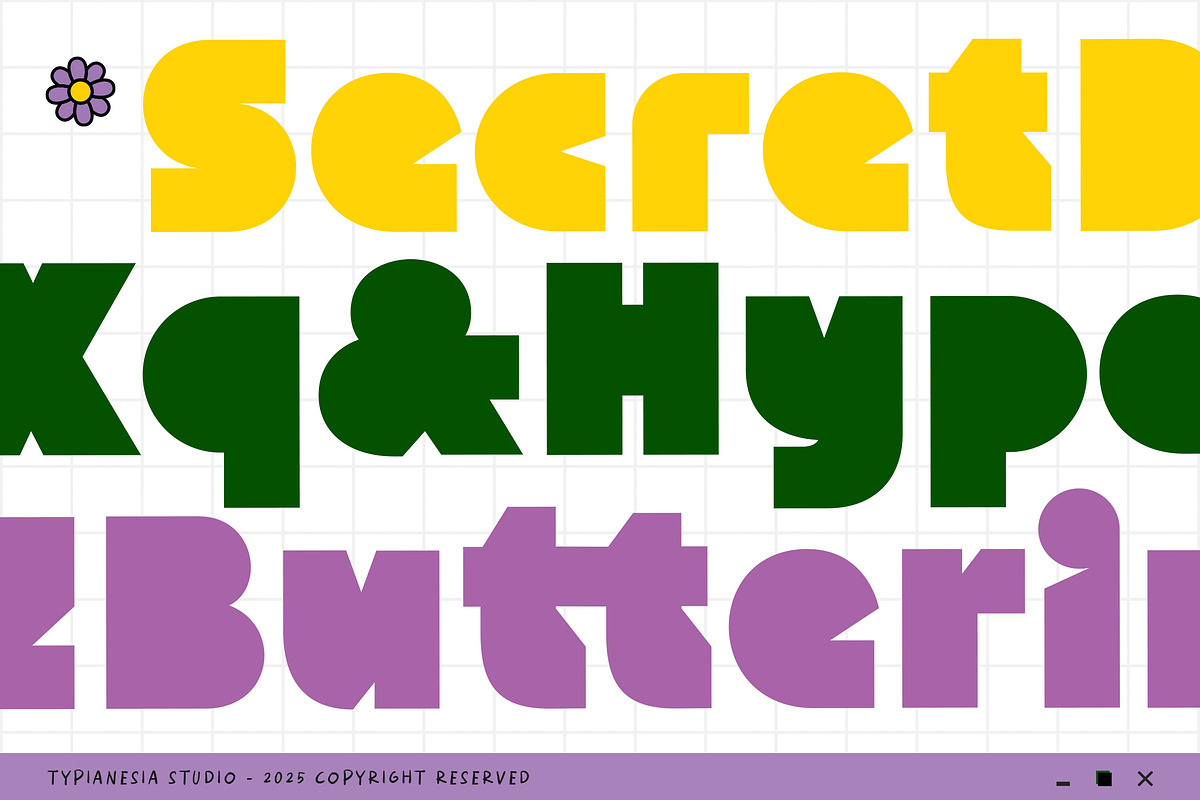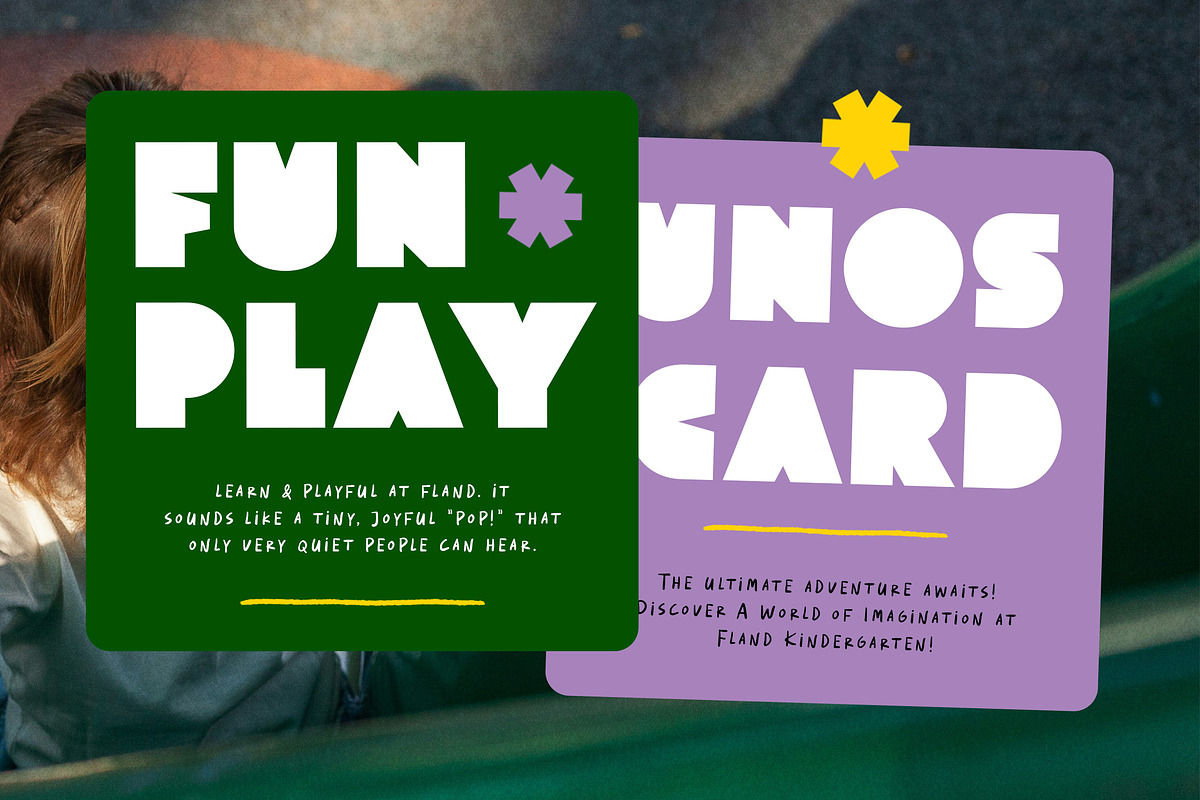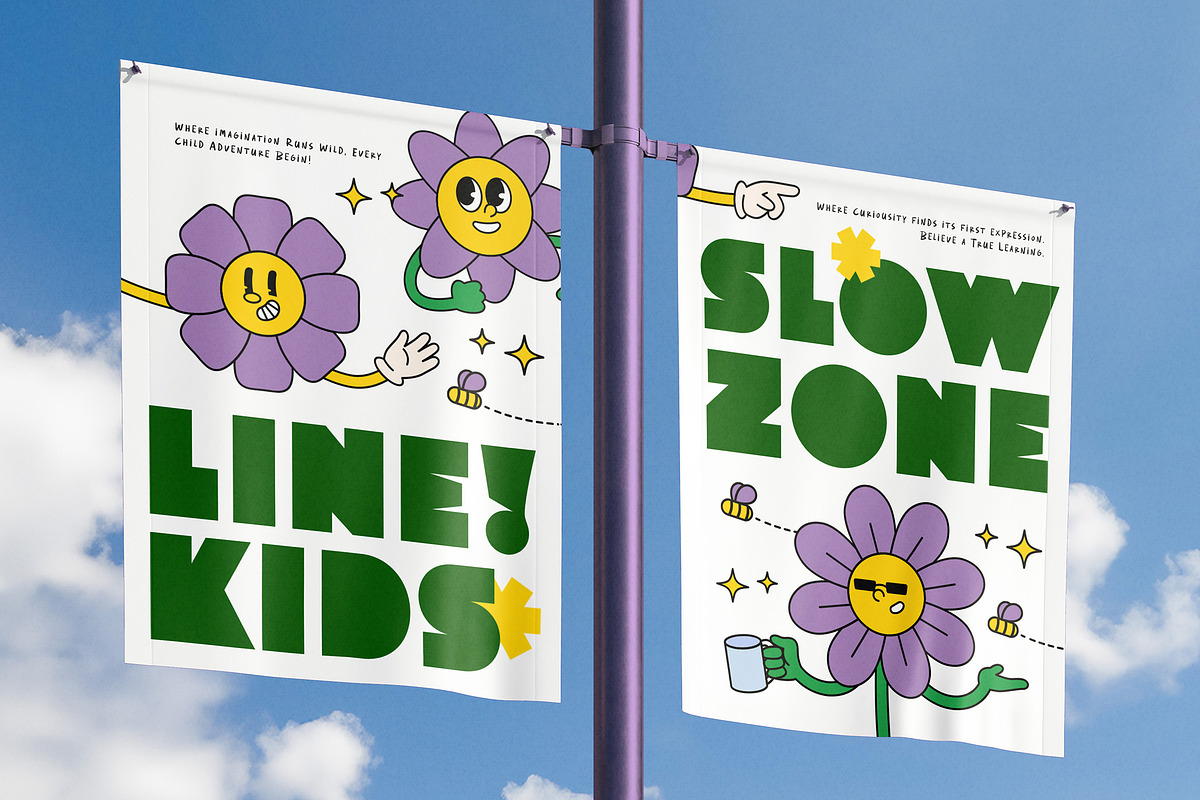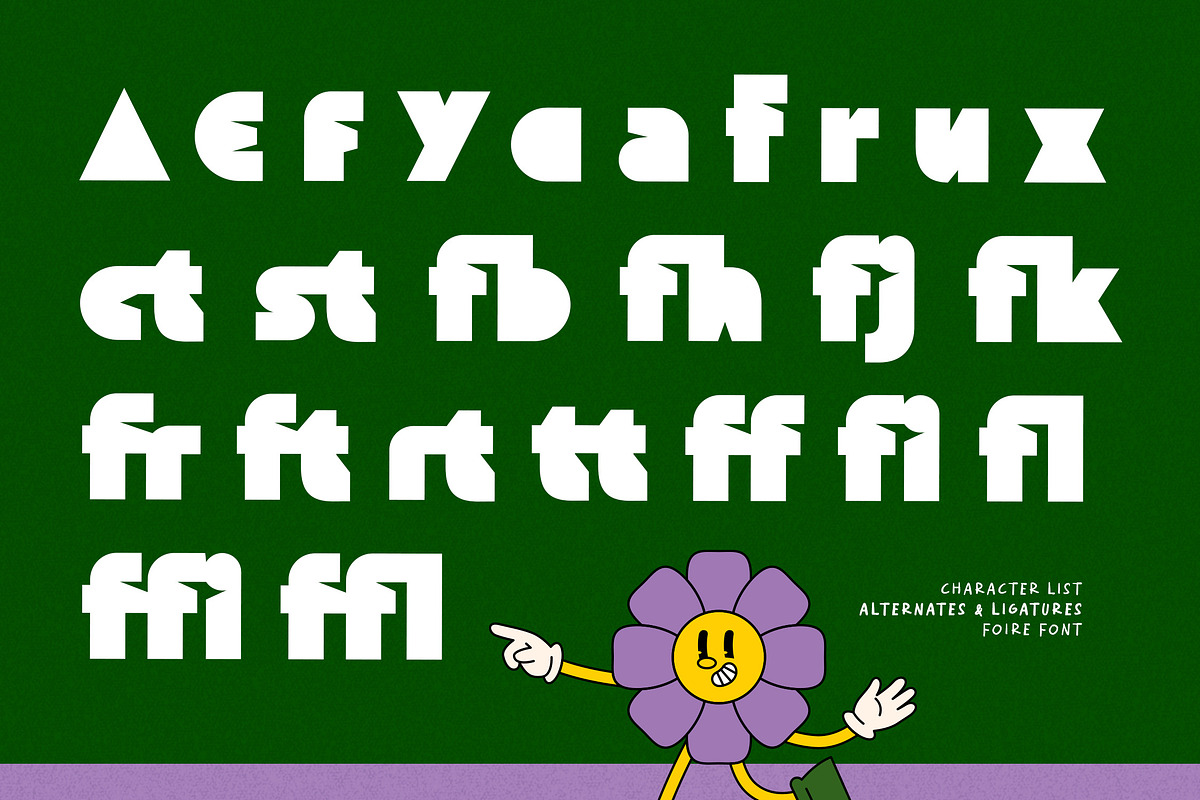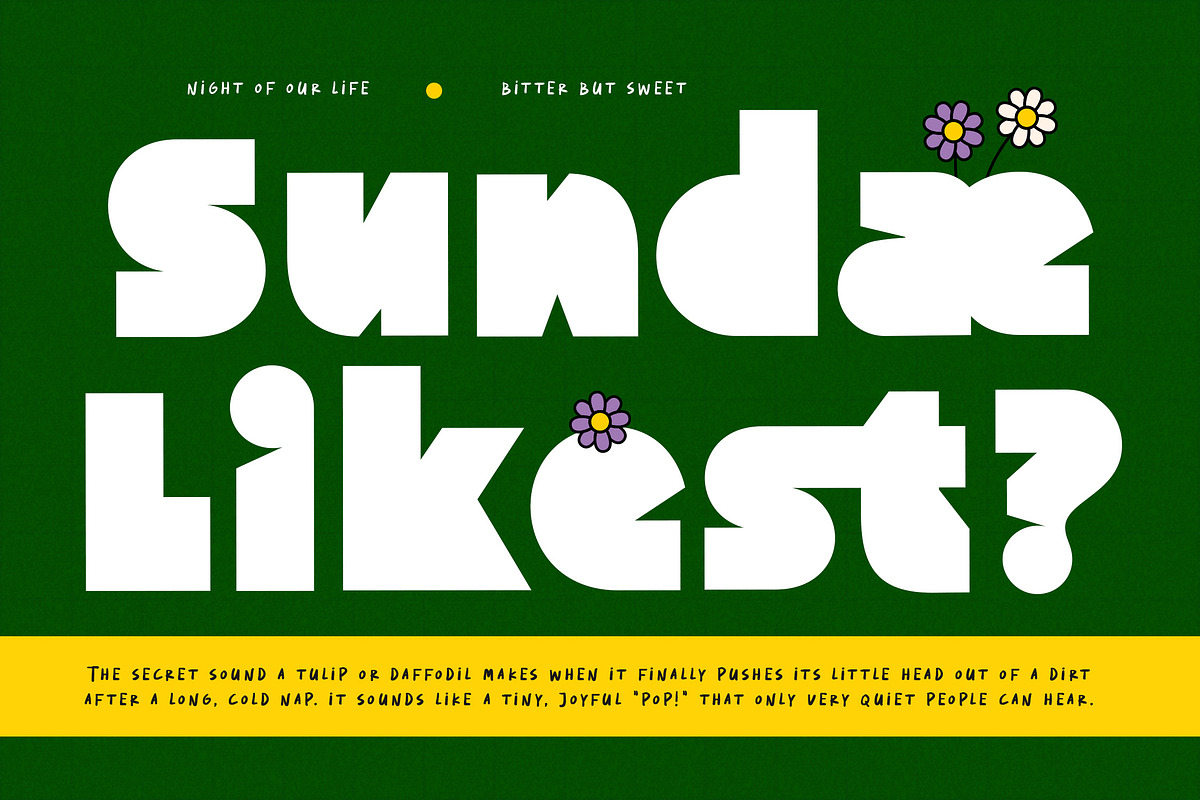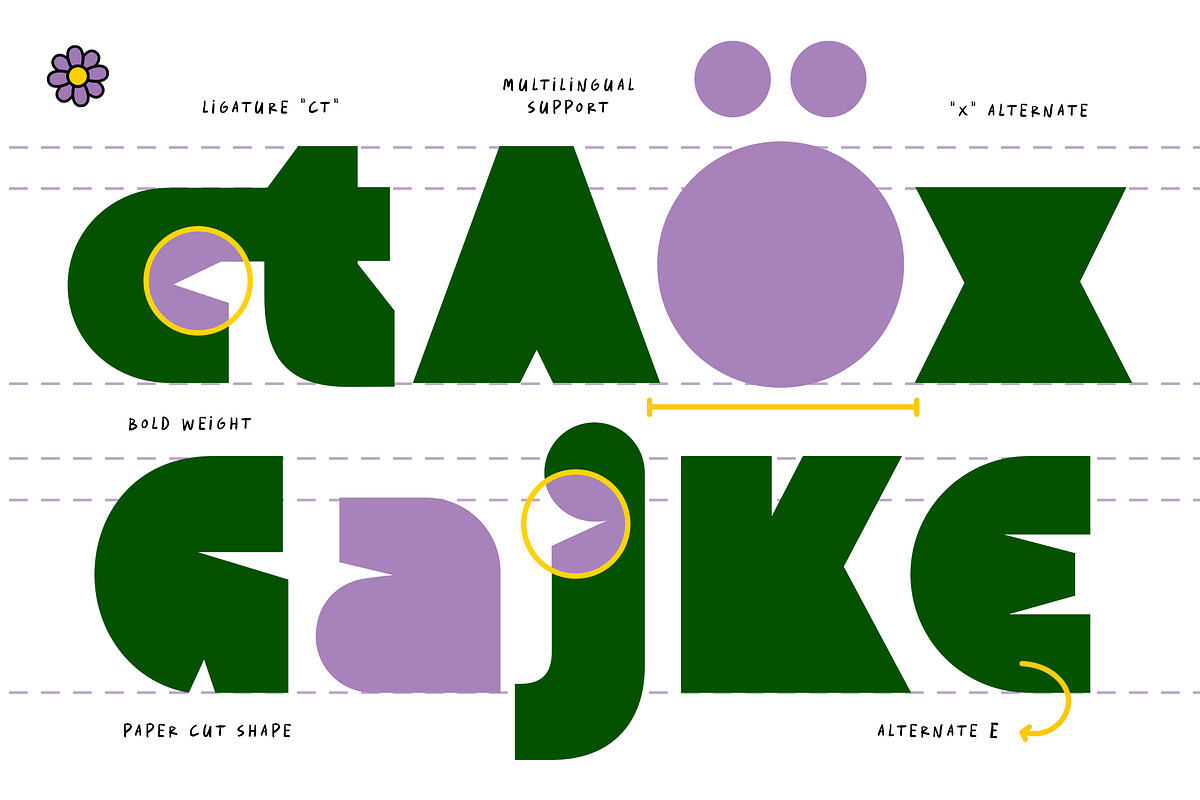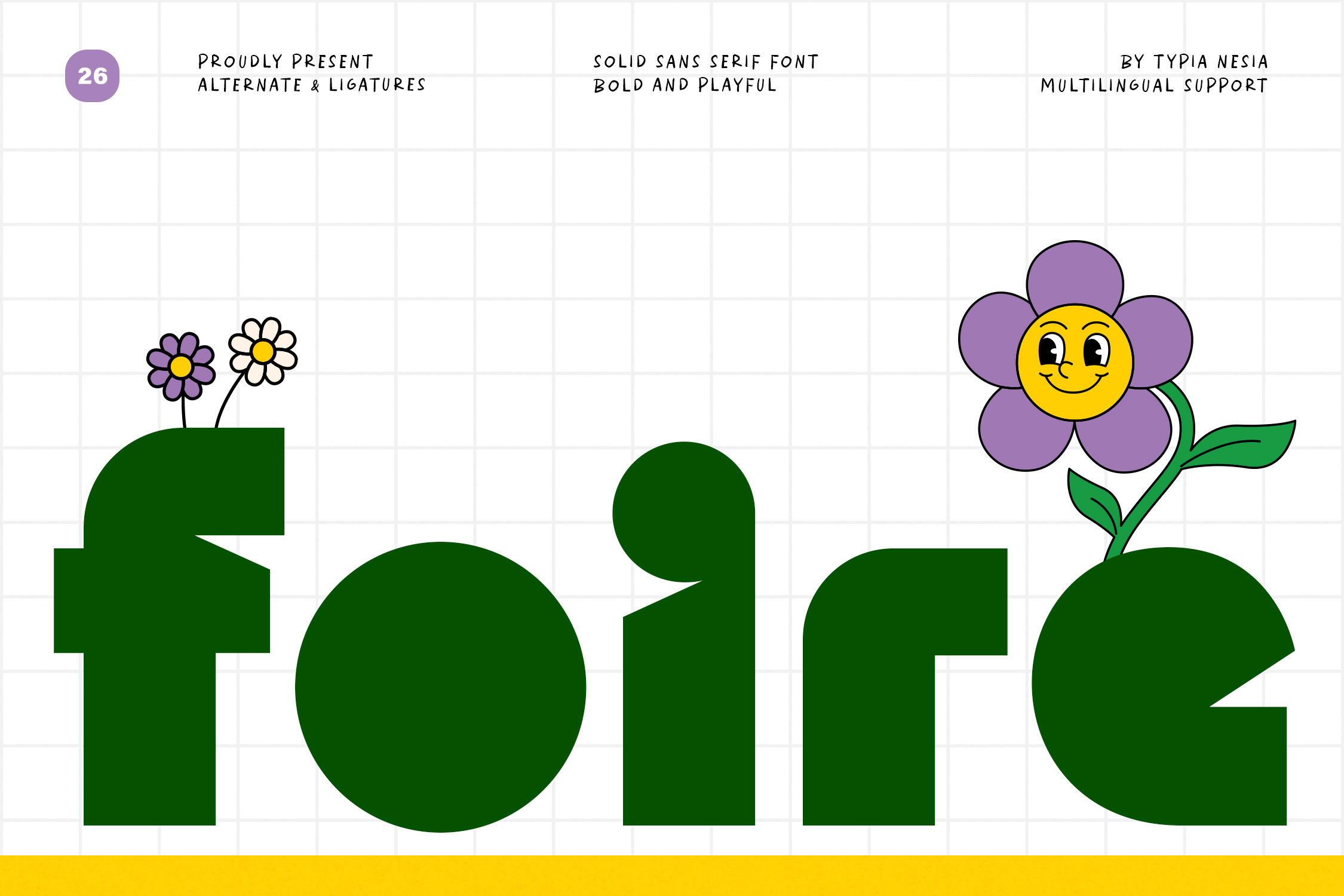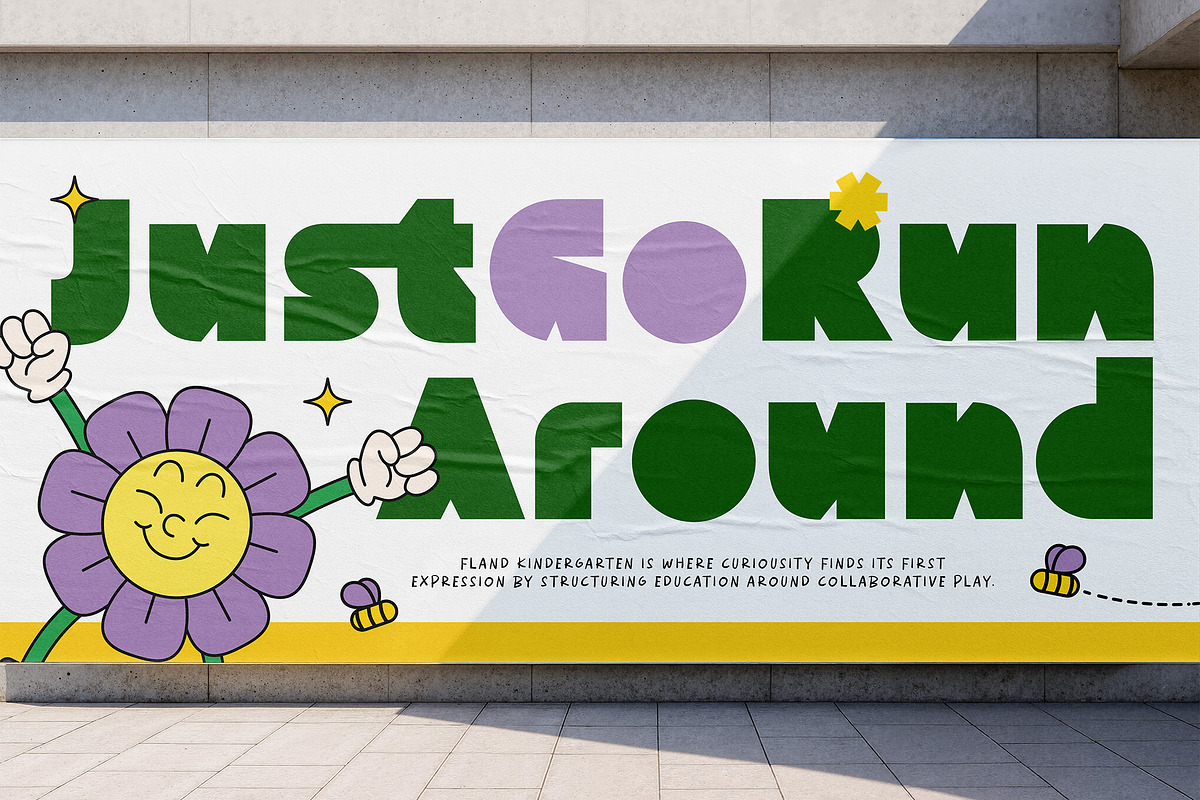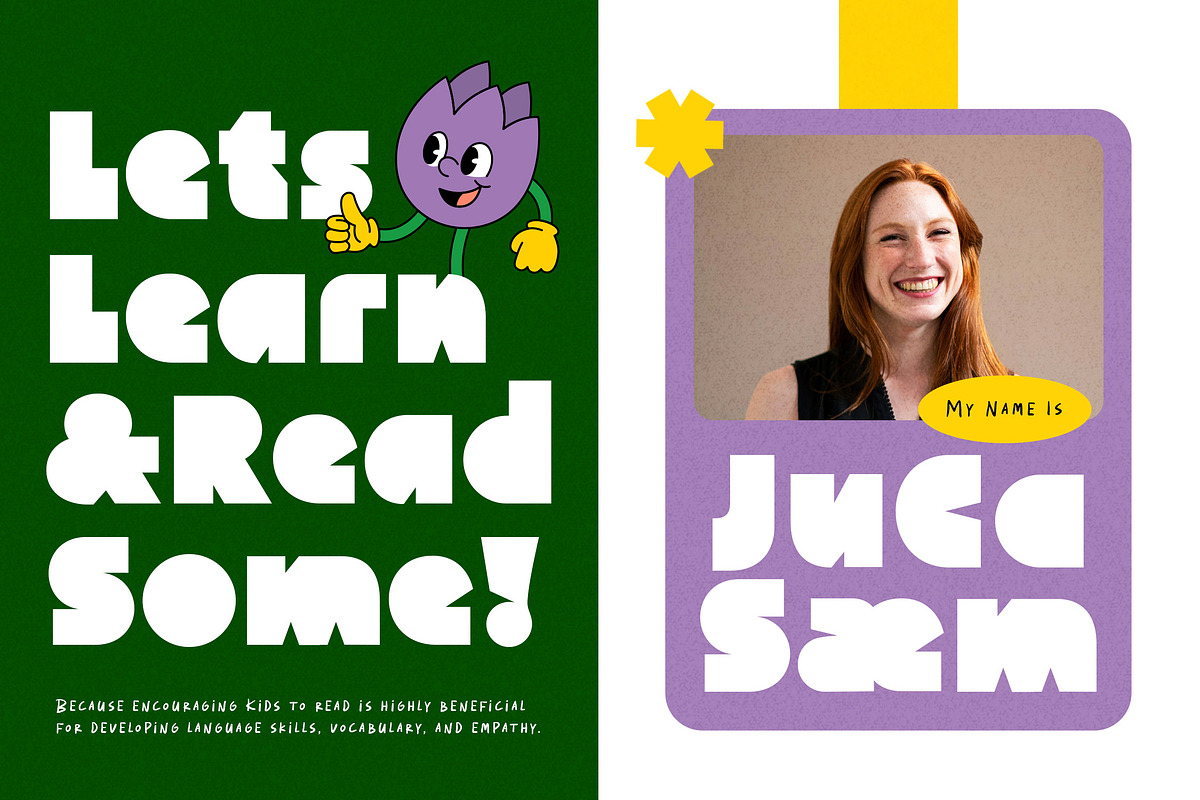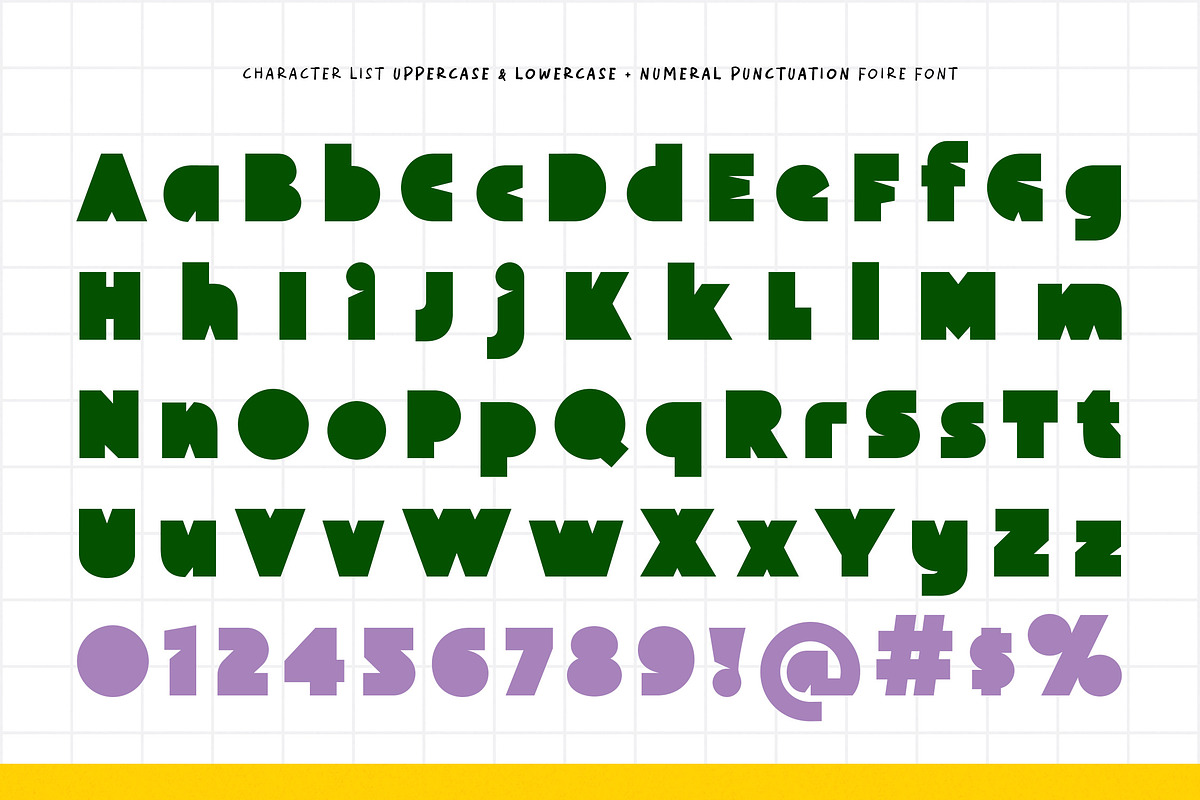
Foire - Playful Bold Solid Font
Foire - Playful Bold Solid Font - Modern Rounded Cartoon Logo Display Font
Foire is a playful bold solid sans serif font designed to bring cheerful energy and fun personality to every design project. Featuring rounded shapes, chunky solid forms, and a cute cartoon-inspired style, this font creates a modern and friendly visual appearance. It is perfect for kids’ branding, game titles, logos, posters, packaging, headlines, modern creative branding, and any project that needs a touch of colorful, happy, and imaginative charm. Foire delivers a bold, energetic, and playful vibe.
Bring playful vibes to your design with Foire!